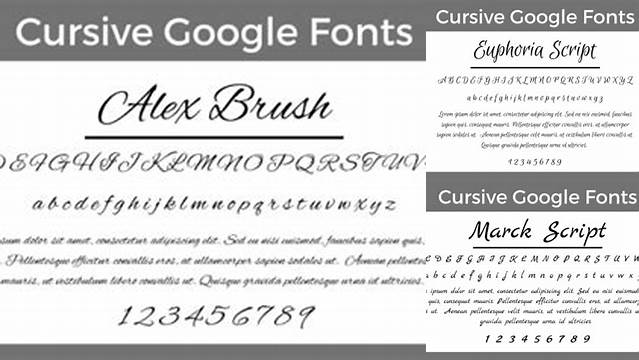
Amazing Cursive Fonts: Google Fonts Guide
Hey everyone! 👋 Today, we're diving headfirst into the wonderful world of cursive letters within Google Fonts. Finding the perfect cursive font can seriously elevate your design projects, making them feel more personal and stylish. Whether you're crafting invitations, designing logos, or sprucing up your website, the right cursive font can make all the difference. We'll explore the best free cursive fonts Google Fonts has to offer, share tips on pairing them with other fonts, and guide you on how to choose the ideal cursive style for your specific needs. Ready to unleash some beautiful, handwritten-style typography? Let's get started!
H2: The Allure of Cursive Fonts: Why Choose Them?
So, why all the fuss about cursive letters? Why not just stick with a plain, simple font? Well, the appeal of cursive fonts lies in their inherent ability to add a touch of elegance, personality, and human warmth to your designs. Think about it: a well-chosen cursive font can make your project feel more authentic, as if it were handwritten with care. This can be particularly effective in branding, where conveying a sense of trust and personal connection is crucial. With cursive letters, you can instantly make a design more visually appealing and memorable. Guys, they just pop!
Additionally, cursive fonts offer a level of sophistication that many other font styles simply can't match. They often evoke a sense of classic beauty, reminiscent of old-world calligraphy and formal handwriting. This makes them ideal for projects where you want to create a sense of luxury, romance, or traditional charm. The flowing lines and connected letterforms of cursive fonts can also be incredibly dynamic and eye-catching, drawing the viewer's eye and creating a sense of visual flow. Using cursive letters from Google Fonts provides a diverse selection from classic elegance to modern flair, making it easy to find the perfect match for any design. From wedding invitations to business cards, the applications are endless. So, if you’re looking to add a touch of style and distinction to your next project, don't underestimate the power of a well-chosen cursive font. Believe me, you won't regret it. 😉
H2: Exploring Google Fonts: Your Cursive Font Haven
H2: Top Cursive Fonts on Google Fonts: Our Recommendations
Okay, so with so many cursive letters on Google Fonts, where do you even begin? Don't worry, we've got you covered! Here are some of our top recommendations for the best cursive fonts, each offering a unique vibe and perfect for different types of projects. Let's start with Great Vibes. This is a classic, elegant font that’s perfect for wedding invitations, greeting cards, and any design where you want to convey a sense of sophistication and charm. It has beautiful flowing lines and a timeless feel. Next up, we have Dancing Script. This is a fun, playful font that's perfect for a more casual and friendly look. It’s ideal for things like children's books, blog headers, and social media graphics. Dancing Script feels like a handwritten note. Then there's Rochester, a bold and dramatic font, perfect for headlines and titles that need to make a statement. It has a strong, confident feel. And another font to consider is Caveat. This is a more modern, approachable cursive font that's versatile enough for a variety of projects, from websites to print materials. It's known for its readability. Lastly, we've got Amatic SC. This is a really neat option, especially for headlines. It’s a sans-serif font but has a handwritten feel. Remember, the best font is the one that fits your project's needs, and with so many amazing options on Google Fonts, you're sure to find the perfect match. Have fun experimenting and choosing the right one for you! 😉
H3: Great Vibes: A Timeless Classic
Great Vibes is the epitome of elegant cursive letters within the Google Fonts library. It effortlessly evokes a sense of refined beauty and sophistication, making it a go-to choice for projects that demand a touch of class. Its graceful, flowing strokes mimic the style of classic calligraphy, adding a sense of timelessness and tradition. This font truly shines in settings like wedding invitations, where it can lend an air of romance and formality. Beyond invitations, Great Vibes is perfect for creating high-end branding materials, such as logos and stationery, where you want to communicate trustworthiness, quality, and a sense of established values. When combined with carefully chosen colors and layouts, Great Vibes can set the tone for your project and create a lasting impression. Its legibility is another key advantage; even with its ornate appearance, it remains easy to read, ensuring your message is clear and accessible. For businesses looking to portray a sense of prestige, this font is a strong choice. It's also suited for creating beautiful quotes, headers, and even book titles. In essence, Great Vibes allows you to infuse your designs with an aura of sophistication and enduring style, making it a valuable asset in your font arsenal. This is why it's a popular choice on Google Fonts for those seeking to create something truly beautiful.
H3: Dancing Script: Playful Elegance
If you are looking for cursive letters that offer a playful, yet elegant aesthetic, look no further than Dancing Script on Google Fonts. This font captures the essence of a handwritten note, with its lively and organic forms. It is ideal for designs where you want to infuse a sense of warmth, approachability, and a touch of whimsy. Perfect for those projects where a simple, formal font just won't do. Dancing Script is incredibly versatile, suitable for a variety of applications. Think about using it in children's books and greeting cards, where its friendly appearance can immediately connect with the audience. It's also a great option for creating blog headers and social media graphics that aim to grab attention. What makes Dancing Script stand out is its balance: it avoids appearing overly childish or amateurish. It maintains a level of sophistication that makes it suitable for a wide range of age groups and purposes. For designers, Dancing Script makes the creation process fun. It offers a chance to experiment with different layouts and compositions, enhancing the overall look and appeal. The font's legibility remains solid, even at smaller sizes, ensuring your message is clear. In summary, Dancing Script is the go-to choice for projects that need a burst of personality and charm, while still maintaining a degree of elegance and readability. If you want to create something memorable, using cursive letters like Dancing Script from Google Fonts is a great idea! ✨
H3: Rochester: Bold and Dramatic
When you need cursive letters that make a statement, turn to Rochester on Google Fonts. This font is the definition of bold and dramatic. Its strong, confident strokes are perfect for headlines, titles, and any text that needs to grab immediate attention. With Rochester, you can inject a sense of power and intensity into your designs, ensuring they capture the viewer's eye. Its distinct style is ideal for projects where you want to convey a sense of authority, drama, or a touch of vintage charm. Think of using it for posters, book covers, and branding materials that aim to stand out. It is an excellent choice for creating a memorable brand identity that stands for strength and recognition. The font's boldness also makes it suitable for creating quotes and call-to-action statements. While it might not be the best choice for long blocks of text, its impact on headlines is undeniable. This font brings a touch of classic Hollywood glamour to any design. From a design standpoint, Rochester is easy to integrate. Its strong appearance will instantly improve any project. Overall, Rochester is the font to use when you're looking to make a grand declaration with your cursive letters from Google Fonts. Its bold appearance ensures it's hard to ignore. Get ready to transform your designs with this awesome font! 💪
H3: Caveat: Modern and Approachable
For a more modern and approachable take on cursive letters, Caveat on Google Fonts is an excellent choice. This font offers a balance of elegance and friendliness, making it a versatile option for a wide range of design projects. Caveat stands out with its clean lines and easy-to-read style. It’s less ornate than some traditional cursive fonts, making it suitable for both digital and print applications. Think about using this font in websites, where readability is essential for a user-friendly experience. Its simplicity works well for various forms of communication, from informative articles to product descriptions. This is because of its ability to blend elegance and friendliness. In the world of branding, Caveat can be used to create a welcoming tone. It's a great fit for businesses that want to connect with customers on a personal level. The readability makes it perfect for long-form content. Furthermore, Caveat is a smart option for creating print materials like brochures and posters. It can be integrated into any design layout. In short, Caveat on Google Fonts is the go-to choice for designs that need to strike a balance between modern appeal and approachability, ensuring your message is both stylish and easy to understand. It's your secret weapon to enhance projects with a touch of sophistication. 😉
H3: Amatic SC: Handwritten Headlines
Amatic SC is a unique option when it comes to cursive letters on Google Fonts. While it might not be a traditional cursive in the strictest sense, this font has a distinct handwritten feel, making it perfect for headlines and titles. The key to its appeal is its simple, clean style that offers a touch of informality. Think of using Amatic SC to give your website or print project a personal, approachable vibe. It's also a great option for creating quotes, adding a sense of authenticity and warmth to the message. This font is characterized by its all-caps design, which adds to its readability and impact, especially in headlines. The simplicity of Amatic SC makes it easy to integrate into any design. Whether you're a designer working on a creative project or a business owner creating marketing materials, Amatic SC is a great choice. It is designed to enhance, not to distract. This Google Fonts option provides a fresh, handwritten touch, perfect for making your headlines pop. It’s a perfect choice for those looking to add a touch of uniqueness and visual interest to their projects. So, if you want to make your headlines stand out, give Amatic SC a try; you won't be disappointed. 😎